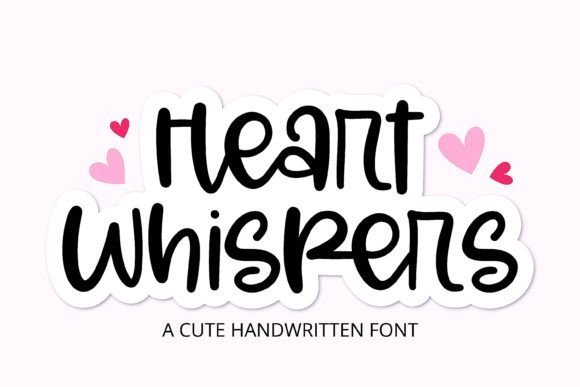
The Magic of Handwritten Fonts: Bringing Personality to Your Designs
Have you ever found yourself in a creative flow, scribbling down ideas on a chalkboard or whiteboard, and feeling like the words are coming alive? That’s exactly the kind of magic that the Heart Whispers Font can bring to your designs. This cool, friendly, and informal handwritten font is perfect for adding a personal touch to your chalkboard quotes or teaching materials.
With its authentic look and feel, the Heart Whispers Font is a valuable asset for designers who want to create unique and engaging visual content. Whether you’re working on a project for a school, a business, or a personal blog, this font can help you convey your message in a way that’s both authentic and memorable. By incorporating the Heart Whispers Font into your designs, you can add a touch of warmth and personality that will resonate with your audience.
Key Features of Heart Whispers Font
- Font Style: Handwritten, Script Font
- Unique Characteristics: Includes ligatures, swashes, and alternate characters for a more personal touch
- Language Support: Supports Latin, Greek, and Cyrillic languages
Heart Whispers Font Review
First off, I really love the ✨ emotional and delicate feel of the Heart Whispers Font. It’s perfect for any project that requires a touch of romance or whimsy. The font’s intricate details and flowing lines make it a great choice for wedding invitations, greeting cards, or any other design that needs to convey a sense of love and care.
The font’s ✨ readability is also a major plus, especially at larger sizes. The characters are well-spaced and easy to distinguish, making it a great option for body text or headings. I also appreciate the ✨ variety of weights and styles available, which allows for a lot of flexibility in design.
However, I do have a few concerns with the font’s ⚠️ limitations. For one, it’s not suitable for bold or heavy text, as the lines can become quite thin and difficult to read. Additionally, the font may not be the best choice for projects that require a lot of technical or scientific text, as the style can come across as overly decorative.
Pros and Cons:
- ✨ Emotional and delicate feel
- ✨ Readability at larger sizes
- ✨ Variety of weights and styles
- ⚠️ Not suitable for bold or heavy text
- ⚠️ May not be suitable for technical or scientific text
Tips for Getting the Most Out of Heart Whispers
For the best results, use the Heart Whispers font in combination with other elegant fonts and soft colors. You can also experiment with different font sizes and styles to create a unique and eye-catching design.
The Heart Whispers font is perfect for:
- Valentine’s Day and love-themed designs
- Soft and romantic branding
- Whimsical and dreamy illustrations
Alternatives to Heart Whispers Font for Designers
Pacifico is a beautiful, elegant script font that is perfect for creating a romantic or vintage atmosphere in your designs. It is ideal for use in wedding invitations, greeting cards, and other personal projects where a touch of elegance is needed. Compared to Heart Whispers Font, Pacifico has a more refined and sophisticated feel, making it suitable for a wider range of design projects.
Great Vibes is a modern script font that is great for creating a fun and energetic atmosphere in your designs. It is perfect for use in social media graphics, advertisements, and other projects where a bold and playful feel is needed. Compared to Heart Whispers Font, Great Vibes has a more dynamic and expressive feel, making it ideal for projects that require a lot of energy and enthusiasm.
Carolyna Pro is a elegant and sophisticated script font that is perfect for creating a luxurious and high-end atmosphere in your designs. It is ideal for use in luxury brand identities, high-end marketing materials, and other projects where a touch of sophistication is needed. Compared to Heart Whispers Font, Carolyna Pro has a more refined and polished feel, making it suitable for a wide range of design projects that require a level of sophistication and elegance.
Q: What is the recommended font size and line spacing for optimal readability with Heart Whispers?